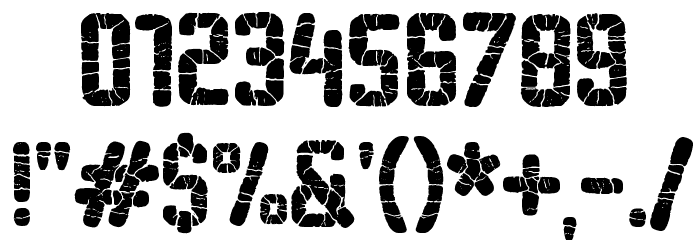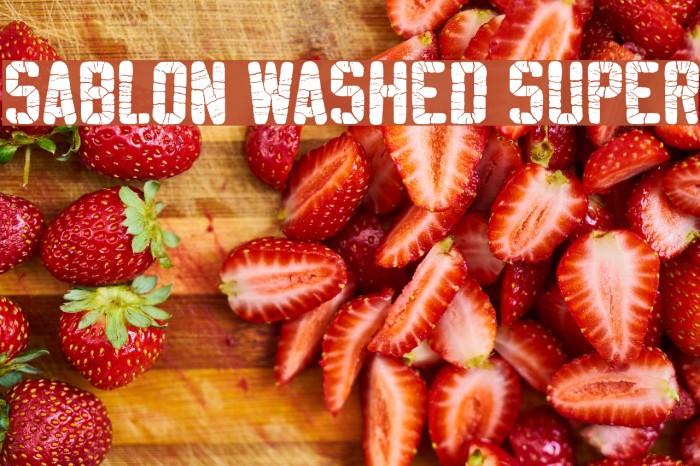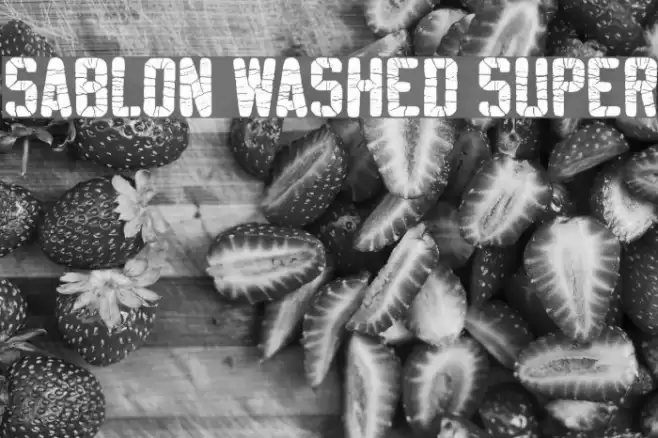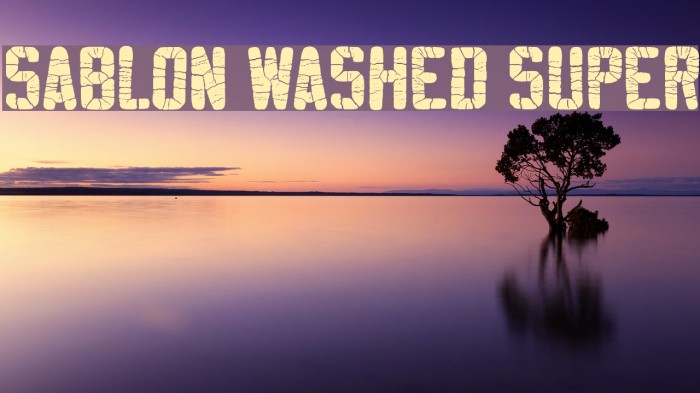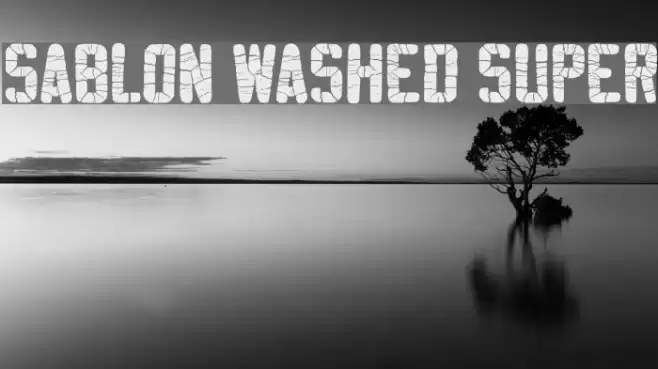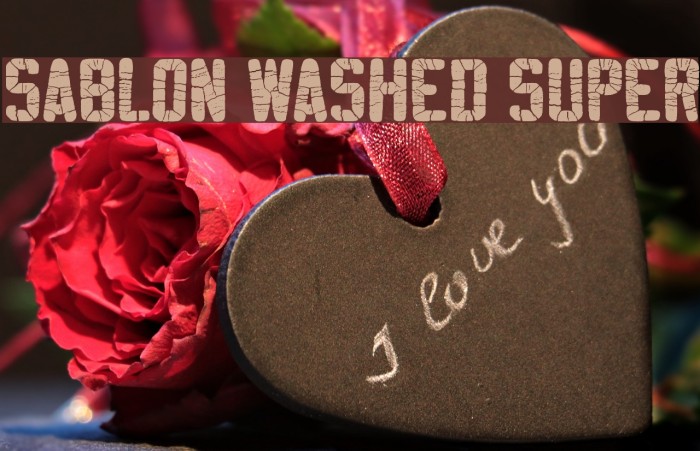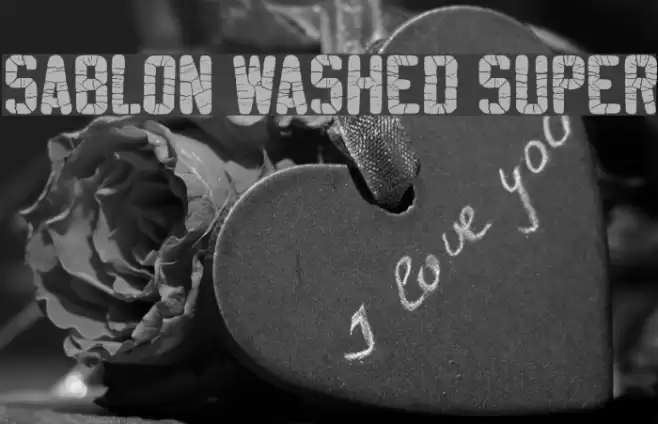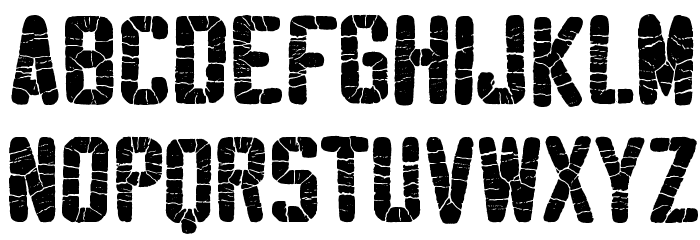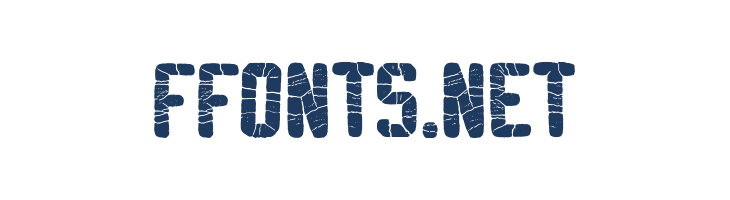
Sablon Washed Super Font
Sablon Washed Super Description
This font features a bold, distressed style with a cracked texture that gives it a rugged and worn appearance. The characters are blocky and robust, making them highly visible and impactful. Each letter and number is designed with a consistent pattern of cracks, adding a unique, weathered effect that suggests age and durability. The font maintains a uniform width across all characters, ensuring a balanced and cohesive look. Its distinctive style is perfect for projects that require a strong, eye-catching typeface with a vintage or industrial feel.
| Overall Style | Vintage |
| Proposed Projects | Ideal for posters, album covers, branding for rugged products, or any design needing a vintage or industrial touch. |